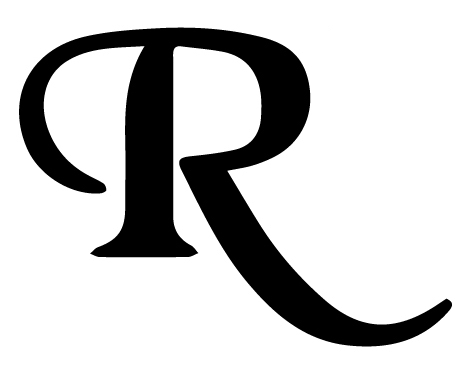
Either a bad reproduction of Black Chancery, or someone tried to add a stroke to it to make it bolder.
If you want something like this that was professionally designed, see Classica.
Or Poetica.